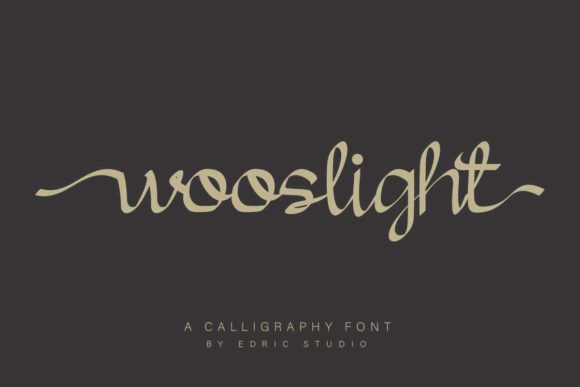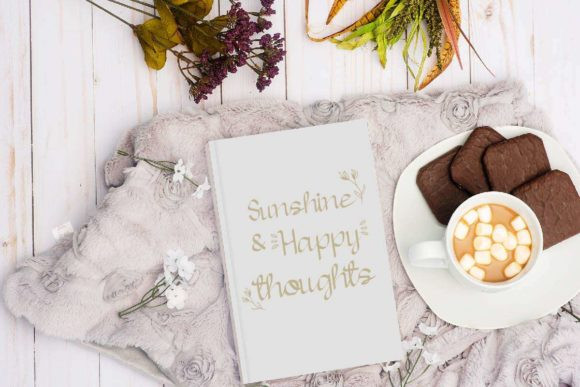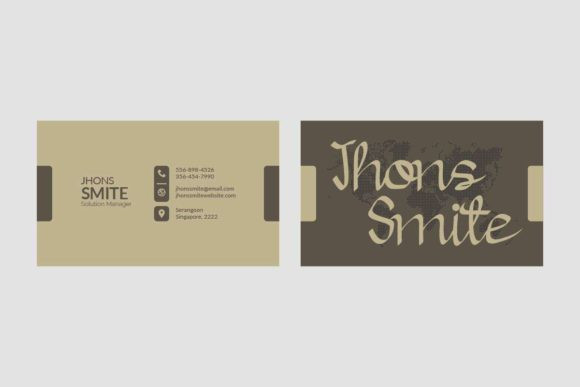
Wooslight Font
Wooslight is inspired by classic typography and brings its own unique style to any design project. Use this gorgeous and unique handwritten font to bring any DIY project to life!